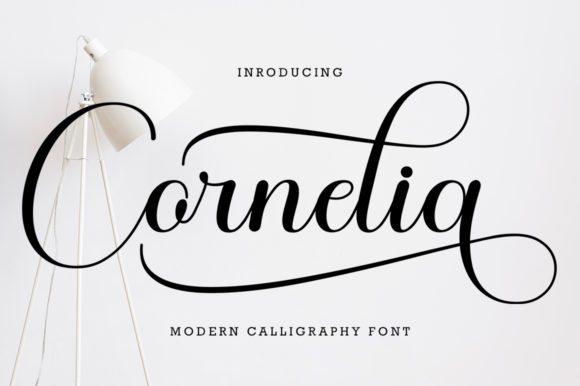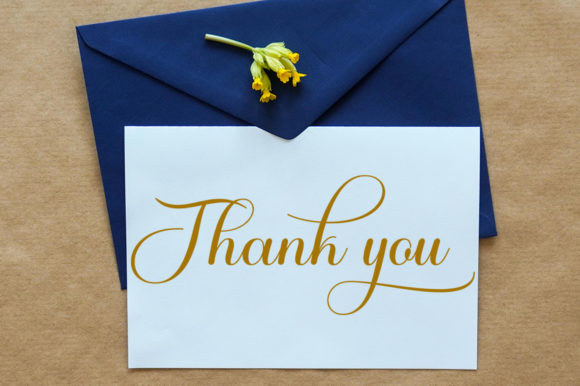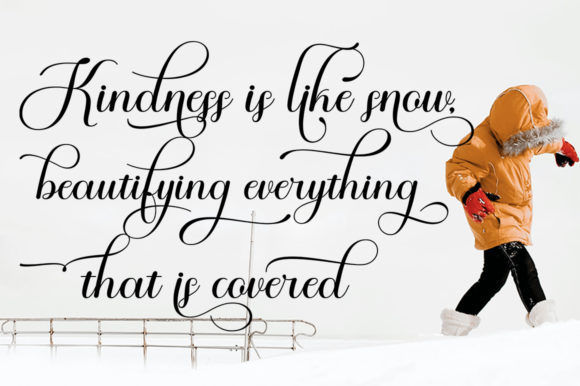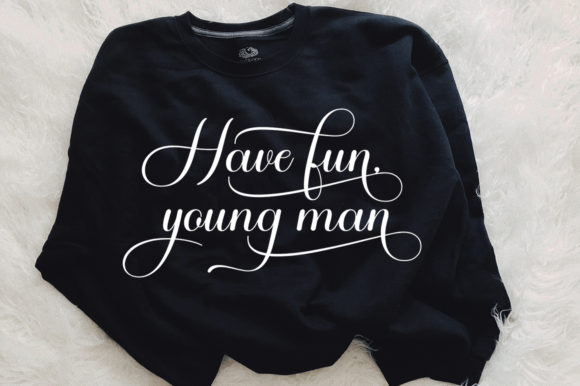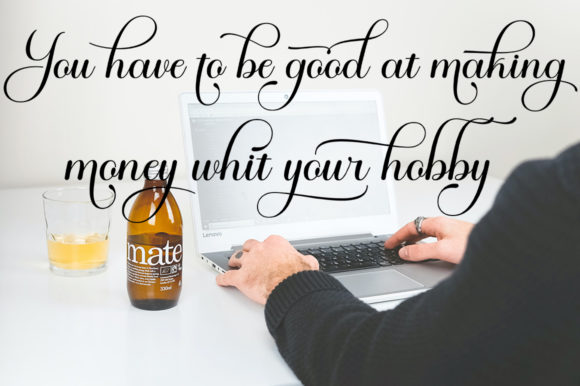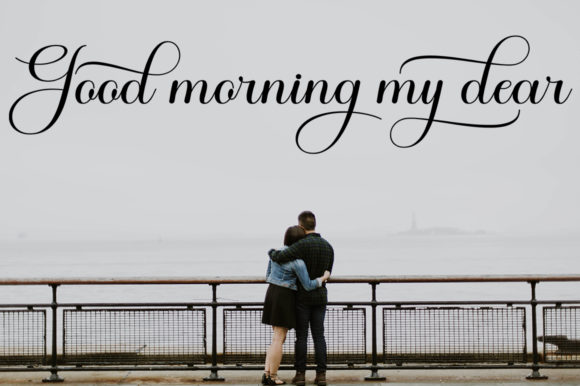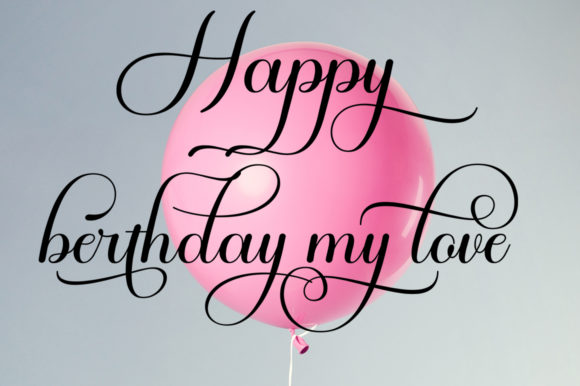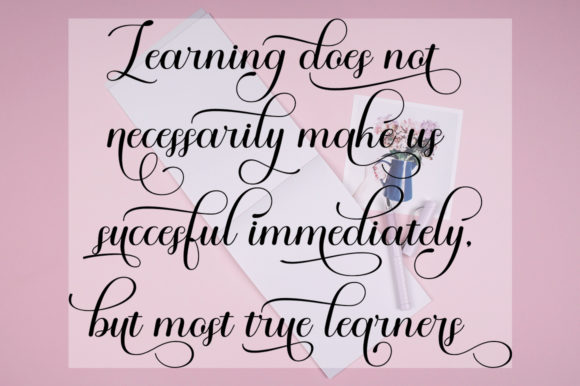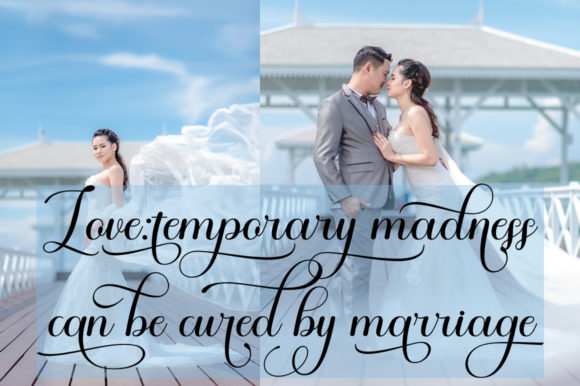
Cornelia Font
About Cornelia Font
Cornelia is a enchanting handwritten font that captures the essence of magic and elegance. Its carefully crafted letterforms and graceful strokes make it a perfect choice for a wide range of creative projects.
When it comes to social media, Cornelia adds a touch of charm and uniqueness to your posts. Whether you’re creating Instagram quotes, Pinterest graphics, or Facebook banners, this font will make your content stand out. Its whimsical style and delicate details bring a sense of enchantment to your visual storytelling.
For DIY projects, Cornelia is a versatile tool that can be used in various ways. Whether you’re designing greeting cards, personalized gifts, or home decor items, this font adds a magical touch to your creations. Its elegant and flowing nature creates a sense of beauty and sophistication, making your DIY projects truly special.
Calligraphy enthusiasts will appreciate the intricate details and smooth curves of Cornelia. Whether you’re working on invitations, certificates, or handwritten notes, this font brings a sense of artistry and elegance to your calligraphy scripts. Its magical appearance and carefully crafted letterforms make each word feel like a work of art.
When using Cornelia, consider experimenting with different sizes and weights to create visual hierarchy and emphasis. Pair it with complementary fonts, such as sans-serif or serif typefaces, to create a balanced and harmonious composition. You can also play with letter spacing and line height to achieve the desired look and feel.
In conclusion, Cornelia is a magical handwritten font that adds a touch of elegance and enchantment to your creative projects. Whether you’re using it for social media graphics, DIY projects, or calligraphy scripts, this font turns any idea into a true piece of art. Embrace the beauty and charm of Cornelia and let your creativity shine through its whimsical letterforms.